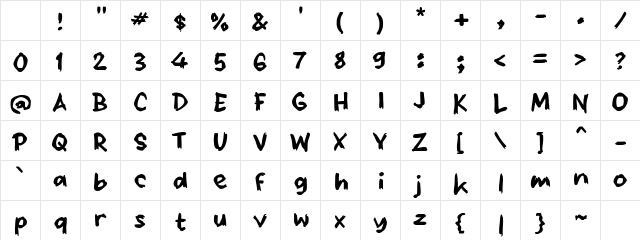
Complete Obliga Obliga glyph index. Displaying only characters natively supported by Obliga Obliga font.
Obliga is a composed and adaptable typeface that performs quietly and consistently across a wide range of design contexts.